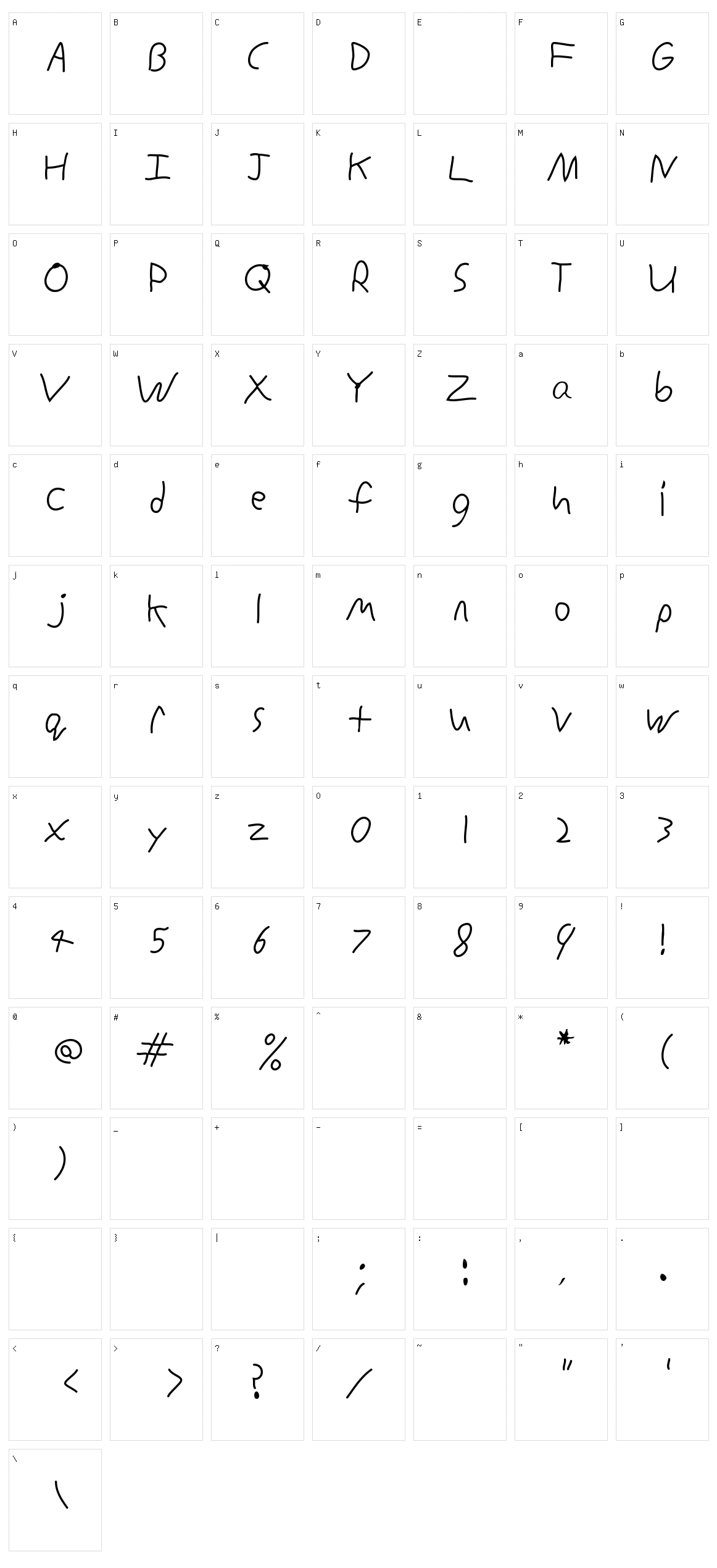
The free font Inconsistent Print is carefully designed by Brendon Hannaford, showcasing a thoughtful balance of creativity and usability and falls under the Script font style. When you download the ZIP file, it contains only 12.99 KB of font files, making it lightweight and quick to download. Please review the license details below to understand permitted usage and distribution rights. If license information is not available, we recommend using this font for personal projects only or contacting the author directly for commercial usage permissions.